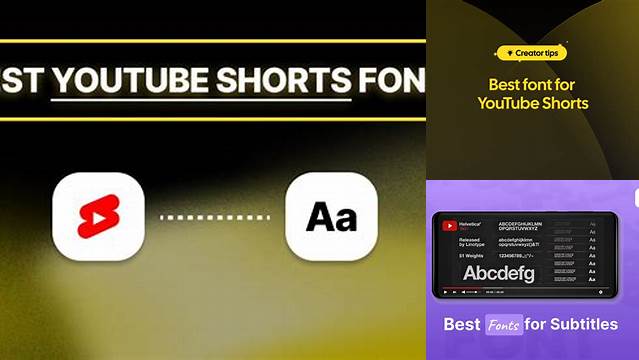
Best Fonts For YouTube Shorts: Engaging Subtitles
Creating engaging YouTube Shorts means grabbing your viewers' attention fast! One often-overlooked element is choosing the right font for your subtitles. Let's dive into the best fonts for YouTube Shorts subtitles to keep those viewers hooked. Seriously, guys, a good font can make all the difference!
H2: Why Font Choice Matters for YouTube Shorts
Okay, so why sweat over fonts? Well, best fonts for YouTube Shorts subtitles aren't just about aesthetics. They're about readability, accessibility, and brand consistency. Think about it: if your font is hard to read, people will just scroll on by. If it doesn't match your vibe, it can feel off. You want something that's clean, clear, and complements your content. We need fonts that are legible on small screens and when viewed quickly. This means avoiding overly decorative or thin fonts. Consider things like letter spacing, stroke width, and overall clarity. Remember, accessibility is key! Make sure the contrast between your text and background is high enough for everyone to read, including those with visual impairments. Using fonts that align with your brand's visual identity can strengthen recognition and consistency. Consistency across all your Shorts helps reinforce your brand image. Think about the mood you want to convey. A playful font might suit a comedy channel, while a more serious font might be better for educational content. The best fonts for YouTube Shorts subtitles should match the tone of your video.
H2: Top 5 Font Styles for YouTube Shorts
Alright, let’s get into the nitty-gritty. Here are five font styles that consistently perform well on YouTube Shorts: San-serif fonts for clarity and modern appeal; Serif fonts for a classic, easy-to-read feel; Bold fonts to make a statement; Handwritten fonts for a personal touch; and Retro fonts for a vintage vibe. The best fonts for YouTube Shorts subtitles often fall into these categories. San-serif fonts like Arial, Helvetica, and Open Sans are known for their clean lines and excellent readability on screens. They're a safe bet for ensuring your subtitles are easy to understand. Serif fonts like Times New Roman or Georgia can add a touch of sophistication, but make sure they remain legible in smaller sizes. Bold fonts are great for emphasizing key words or phrases in your subtitles. Just be careful not to overuse them, as too much bold text can be overwhelming. Handwritten fonts can inject personality and authenticity into your Shorts. Use them sparingly and ensure they are still readable. Retro fonts can create a nostalgic feel and make your Shorts stand out. They're perfect for videos with a vintage or throwback theme. Choosing the best fonts for YouTube Shorts subtitles depends on the overall aesthetic you're going for!
H2: Best San-Serif Fonts for Readability
San-serif fonts are your go-to for readability, especially on small screens. Think Arial, Helvetica, and Open Sans. These best fonts for YouTube Shorts subtitles are clean, modern, and easy on the eyes. Arial is a classic choice that's widely available and highly legible. It's a safe bet for any type of Short. Helvetica is another popular option known for its clean and neutral appearance. It works well in a variety of contexts. Open Sans is a more modern san-serif font that's optimized for digital displays. It has a slightly wider letter spacing, which improves readability. When choosing a san-serif font, consider the stroke width. Thicker strokes tend to be more visible on small screens. Also, pay attention to the letter spacing. Sufficient spacing between letters prevents them from blurring together. Test your chosen font on different devices to ensure it remains readable. The best fonts for YouTube Shorts subtitles will be easily readable across all platforms.
H2: Using Serif Fonts Effectively in Shorts
Serif fonts can add a touch of elegance, but use them carefully! Times New Roman and Georgia are popular, but ensure they're legible at smaller sizes. The best fonts for YouTube Shorts subtitles need to be clear above all else. Times New Roman is a classic serif font that can add a formal feel to your Shorts. However, it may not be the best choice for smaller screens. Georgia is a more screen-friendly serif font with slightly thicker strokes and wider letter spacing. It's a better option for subtitles. When using serif fonts, increase the font size slightly to improve readability. Also, use a contrasting background color to make the text stand out. Avoid using serif fonts for long blocks of text, as they can become tiring to read on screens. Reserve them for headings or short phrases. Remember, readability is paramount. The best fonts for YouTube Shorts subtitles are the ones that viewers can easily understand.
H3: Making Bold Fonts Work for Emphasis
Bold fonts are fantastic for emphasis, but don't overdo it! Use them sparingly to highlight key words or phrases. The best fonts for YouTube Shorts subtitles use bold strategically. When using bold fonts, choose a font that has a clear distinction between the regular and bold weights. This ensures that the bold text stands out effectively. Use bold text to emphasize keywords, calls to action, or important information. Avoid using bold text for entire sentences or paragraphs, as it can become overwhelming. Pair bold text with a contrasting background color to further enhance its visibility. Experiment with different font weights to find the right balance between emphasis and readability. The best fonts for YouTube Shorts subtitles use bold for impact, not clutter.
H3: Adding a Personal Touch with Handwritten Fonts
Handwritten fonts can make your Shorts feel more personal, but readability is crucial. Choose fonts that are easy to decipher. The best fonts for YouTube Shorts subtitles strike a balance between style and clarity. When selecting a handwritten font, prioritize legibility. Avoid fonts with overly elaborate or stylized characters. Use handwritten fonts sparingly to add a personal touch without sacrificing readability. Consider using them for short phrases or greetings. Pair handwritten fonts with a simple background to avoid visual clutter. Test your chosen font on different devices to ensure it remains readable. The best fonts for YouTube Shorts subtitles use handwritten fonts to enhance, not detract from, the message.
H3: Creating a Vintage Vibe with Retro Fonts
Retro fonts can give your Shorts a unique, vintage feel. Just make sure they're still readable on small screens. The best fonts for YouTube Shorts subtitles in the retro category balance nostalgia with legibility. When using retro fonts, choose fonts that evoke a specific era or style. Consider fonts inspired by vintage posters, signage, or typography. Use retro fonts to complement the overall theme of your Short. Avoid using them if they clash with the content or visual style. Pair retro fonts with appropriate color palettes and graphics to create a cohesive vintage aesthetic. Test your chosen font on different devices to ensure it remains readable. The best fonts for YouTube Shorts subtitles in the retro style enhance the vintage vibe without sacrificing clarity.
H2: Font Size and Spacing for Optimal Viewing
Font size and spacing are just as important as the font itself! Make sure your text is large enough to read easily, and that there's enough space between letters and lines. The best fonts for YouTube Shorts subtitles are sized and spaced for maximum readability. Experiment with different font sizes to find the optimal size for your chosen font and screen resolution. Ensure that the text is large enough to be easily read without being too large and overwhelming. Adjust the letter spacing and line height to improve readability. Sufficient spacing between letters prevents them from blurring together, while adequate line height ensures that lines of text don't overlap. Test your settings on different devices to ensure that the text remains readable. The best fonts for YouTube Shorts subtitles are sized and spaced to be comfortable to read on any device.
H2: Color Contrast: Ensuring Legibility
Color contrast is key! Make sure your subtitles stand out against the background. Use a contrasting color that's easy to see. The best fonts for YouTube Shorts subtitles are paired with high-contrast colors. When choosing a color for your subtitles, consider the background of your Short. Select a color that provides sufficient contrast to make the text stand out. Use a color contrast checker to ensure that your chosen colors meet accessibility standards. Avoid using colors that are too similar to the background, as this can make the text difficult to read. Test your settings on different devices to ensure that the text remains legible. The best fonts for YouTube Shorts subtitles use color contrast to ensure maximum visibility.
H2: Final Thoughts: The Key to Great Subtitles
The key to great subtitles is readability and consistency. Choose fonts that are easy to read on small screens, and use them consistently across all of your videos. The best fonts for YouTube Shorts subtitles are those that prioritize these two principles. Remember, the goal of subtitles is to make your content more accessible and engaging. By choosing the right fonts and following best practices, you can create subtitles that enhance the viewing experience for your audience. Happy creating!